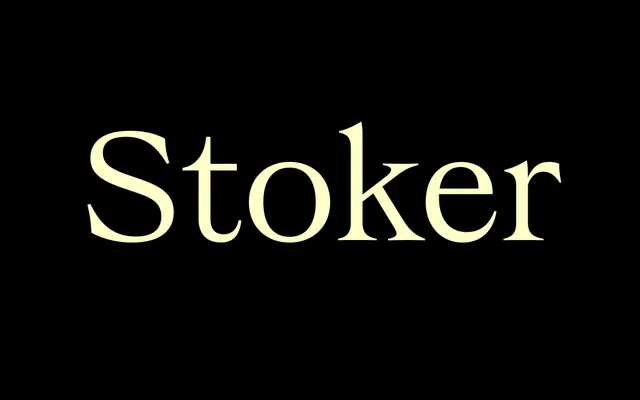
Stoker
Signal · Seán Mongey, Max Phillips
A wide, high-contrast revival of Miller & Richard's Oldstyle Antique No. 6, expanded with a lowercase and figures by Seán Mongey and Max Phillips, with fang-like serifs that nod to 1970s Victorian revivals like ITC Benguiat.
Commissioned by Post Studio for boutique hotel Haddington House, the design began as a strict all-caps revival before growing into a full typeface with lowercase and figures. Wide proportions, exaggerated x-height and open counters give it presence at display sizes, while contrast remains controlled enough for short runs of text. The name Stoker was chosen in reference to the fang-like serifs and the stylised decadence of the Victorian era Bram Stoker inhabited.
Rooted in a revival of Miller & Richard's Oldstyle Antique No. 6, Stoker is a wide, high-contrast display serif with exaggerated x-height and pronounced fang-like serifs, placing it firmly in the Victorian-revival display tradition.